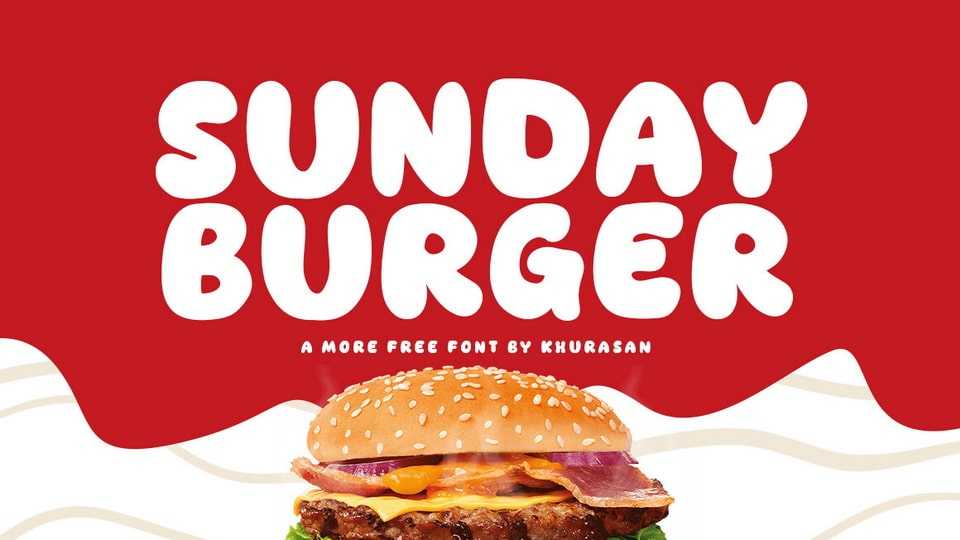
Download Sunday Burger font, a hand-drawn typeface that revels in happy accidents. With its lively lines and playful shapes, Sunday Burger font is perfect for bringing an air of celebration to your designs.